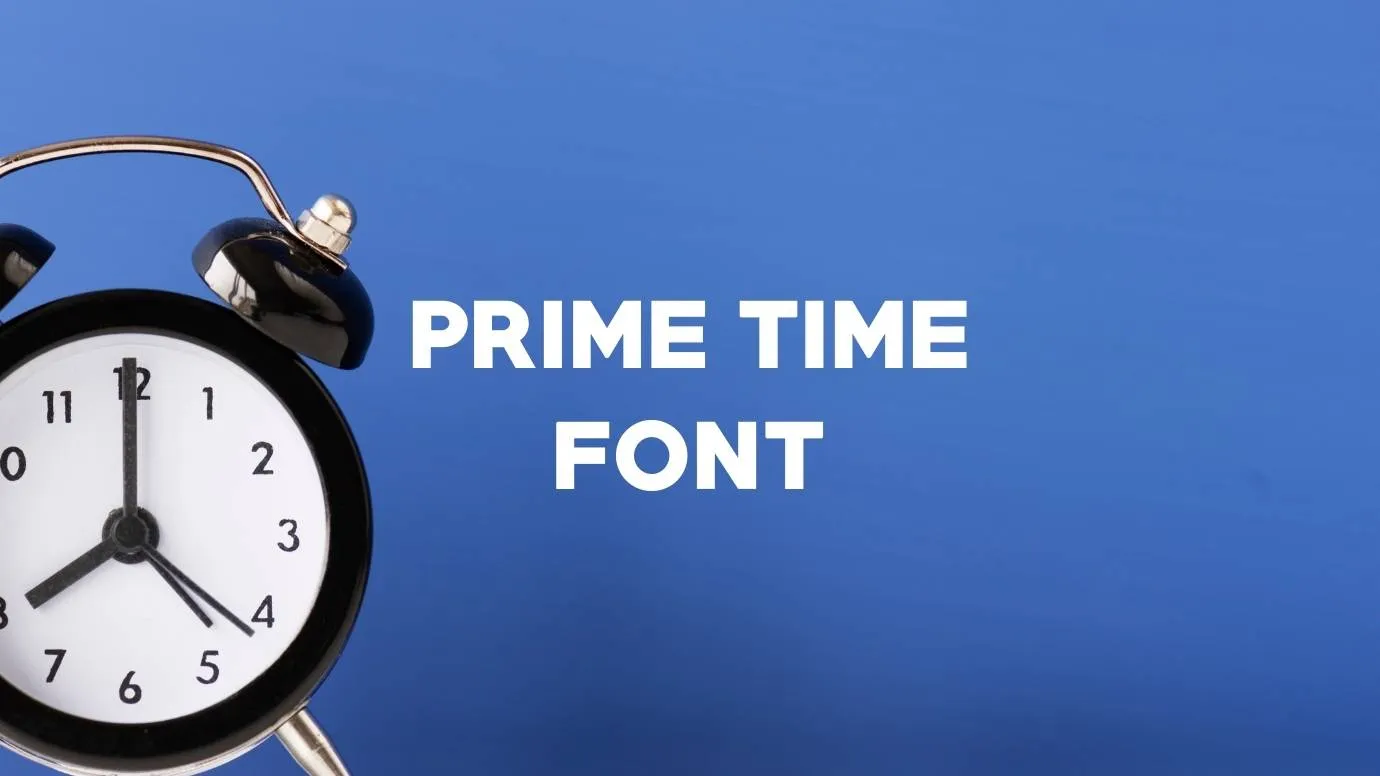
Primetime Font Family is a creative and ornamental sans serif typeface family that comes 3 weights including regular, bold, and heavy, each weight has its own italic. It was designed by a notable graphic designer Mr. Guilhem GRECO.
It gives an extraordinary touch to designs when used with the pairing of Ar Bonnie Font. Its bold and italic weights are very famous among the world’s designers and it is highly used for headlines and texture content purposes.
Primetime Font Family